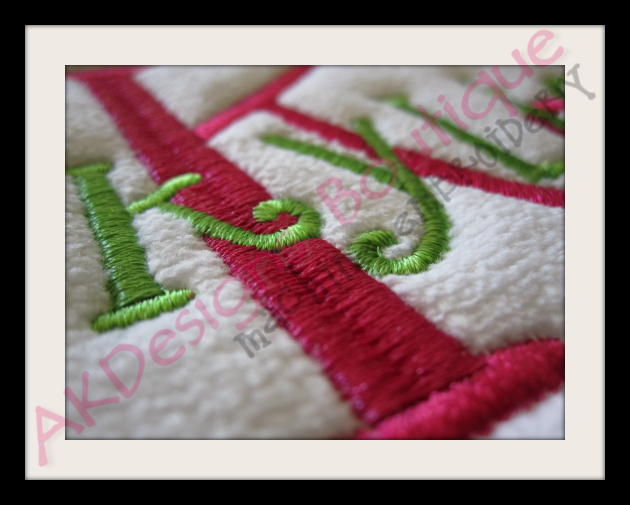
No 317 Swirly Stackable Monogram Font Machine Embroidery Designs 3 inch high
• Close-up of stitched example on a towel.
• All letters included in this set.
• Examples of what monograms look like made with this set.
• Stitched example on a towel.
No 317 Swirly Stackable Monogram Font Machine Embroidery Designs 3 inch high
This set contains 52 individual designs:
• 26 Uppercase “Big” Letters – 3” high
• 26 Lowercase “Small” Letters
• Perfect for 4x4 Hoop and Towels!
Size of Monogram examples pictured above:
• Kylie - 3.1" h X 3.1" w
• Allie - 3.0" h X 2.9" w
• Turner - 2.9" h X 3.8" w
• Jake - 3.2" h X 2.6" w
Designed for stacking